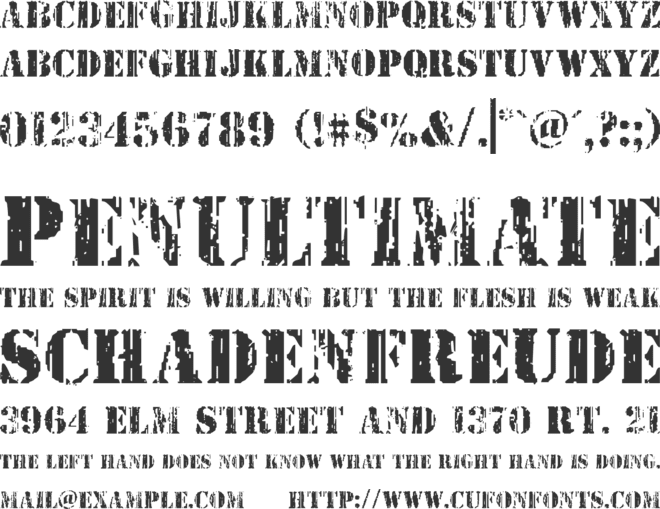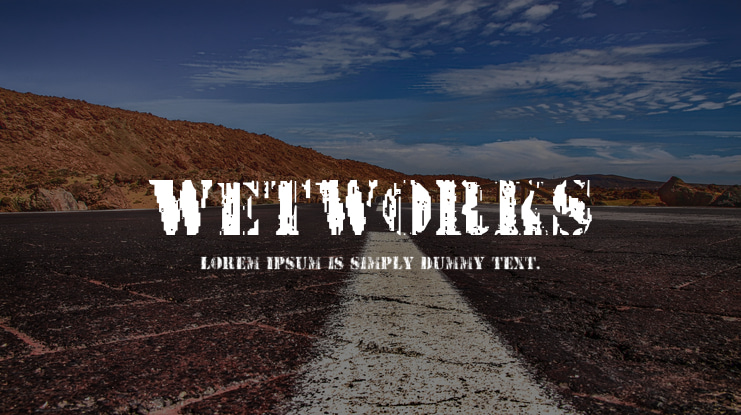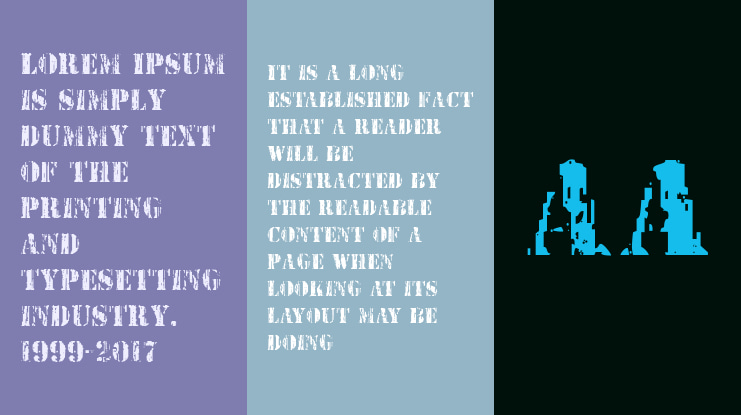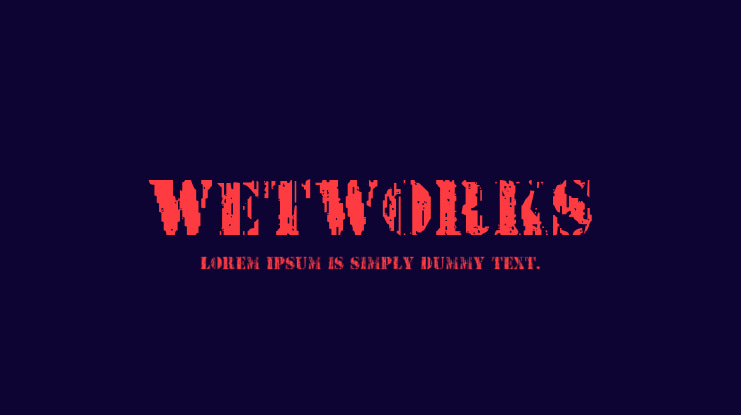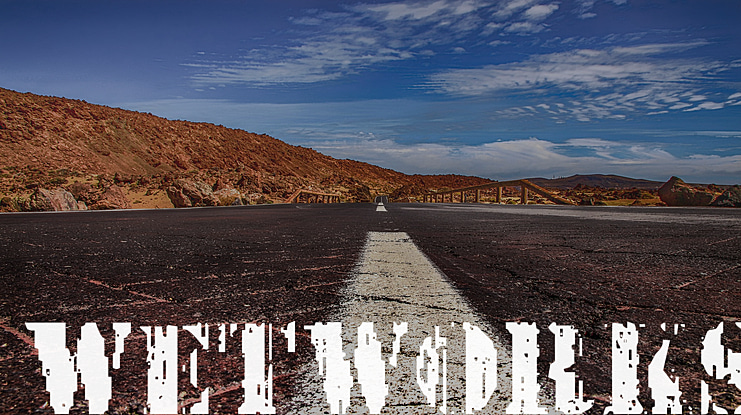
Wetworks Font Family
Daniel Zadorozny
Wetworks is a military stencil font that has been chewed up as if it had been run ragged through a war. Also, the upper case letters are a heavier, blacker weight than the lower case letters. Includes a complete Latin character set. For information on commercial usage, please visit www.iconian.com/commercial.html